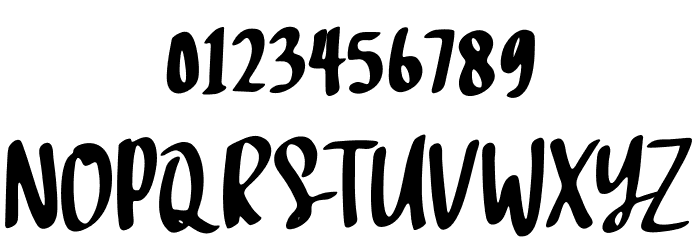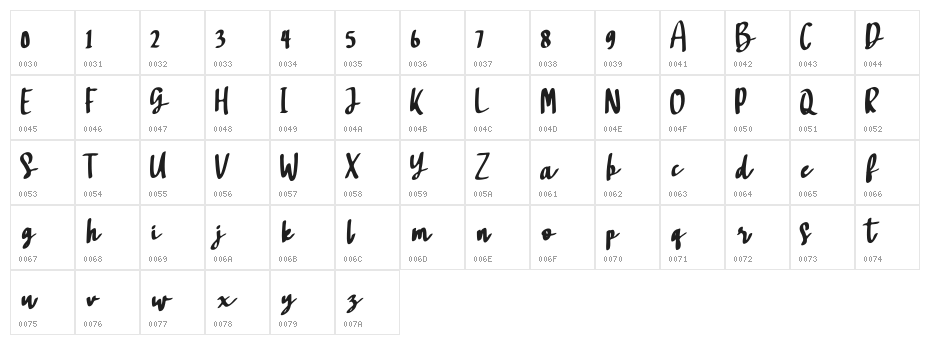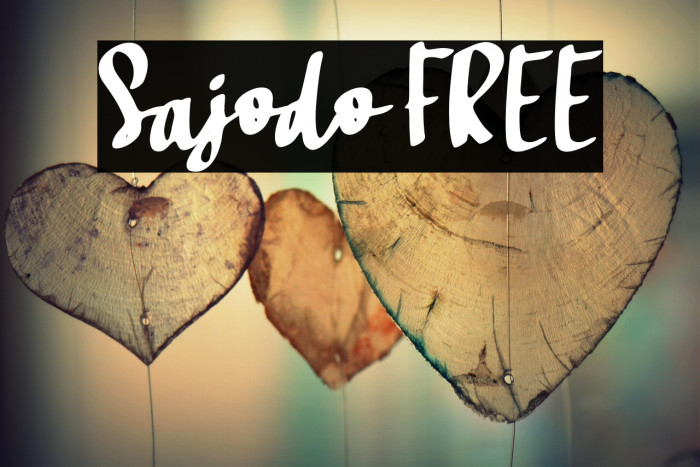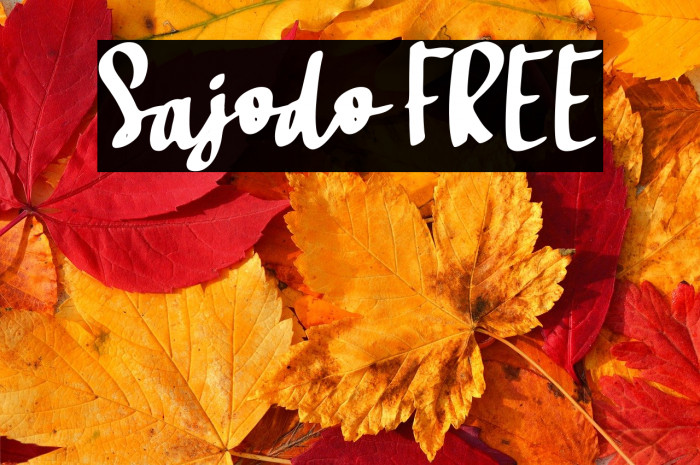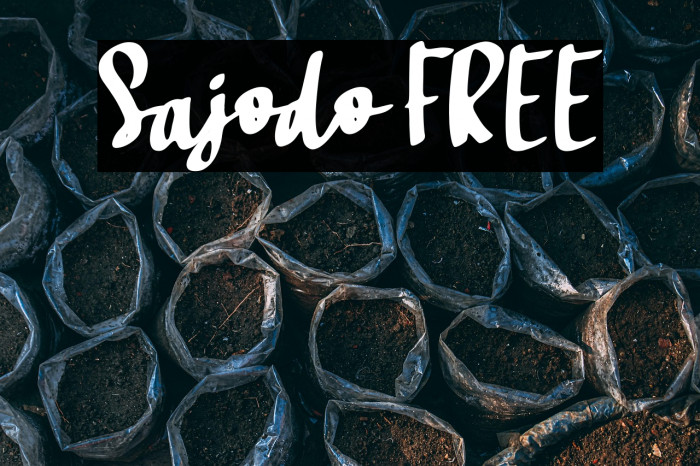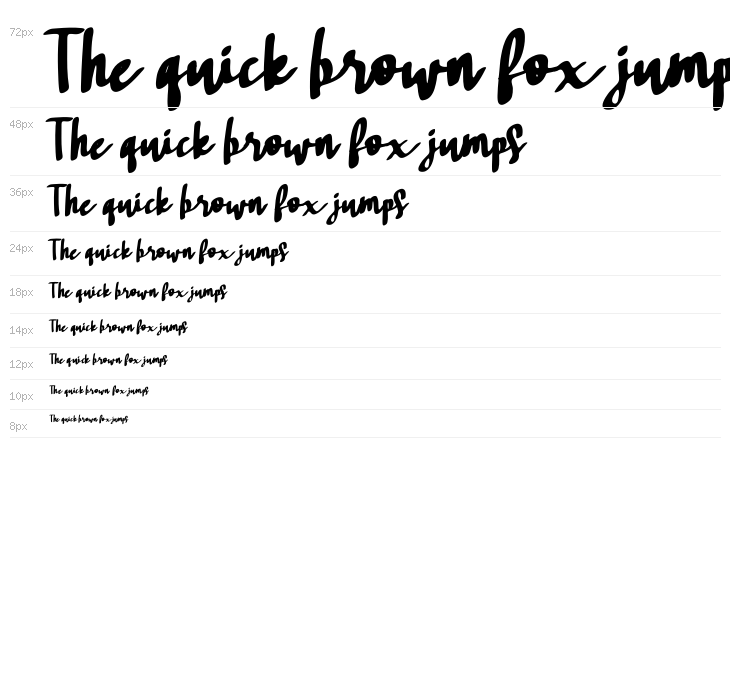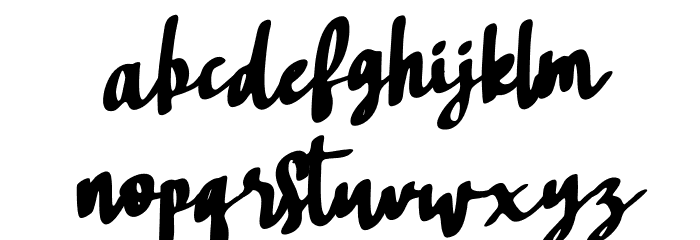
Sajodo FREE Font
Sajodo FREE Description
This font exhibits a bold and expressive handwritten style, characterized by its fluid and dynamic strokes. The uppercase letters are tall and slightly condensed, giving a sense of elegance and movement. The lowercase letters maintain a consistent flow, with smooth curves and a playful touch. The numbers are bold and clear, ensuring readability. Special characters are designed with the same lively flair, making them stand out. Overall, this font combines a modern aesthetic with a touch of artistic flair, suitable for projects that require a personal and creative touch.